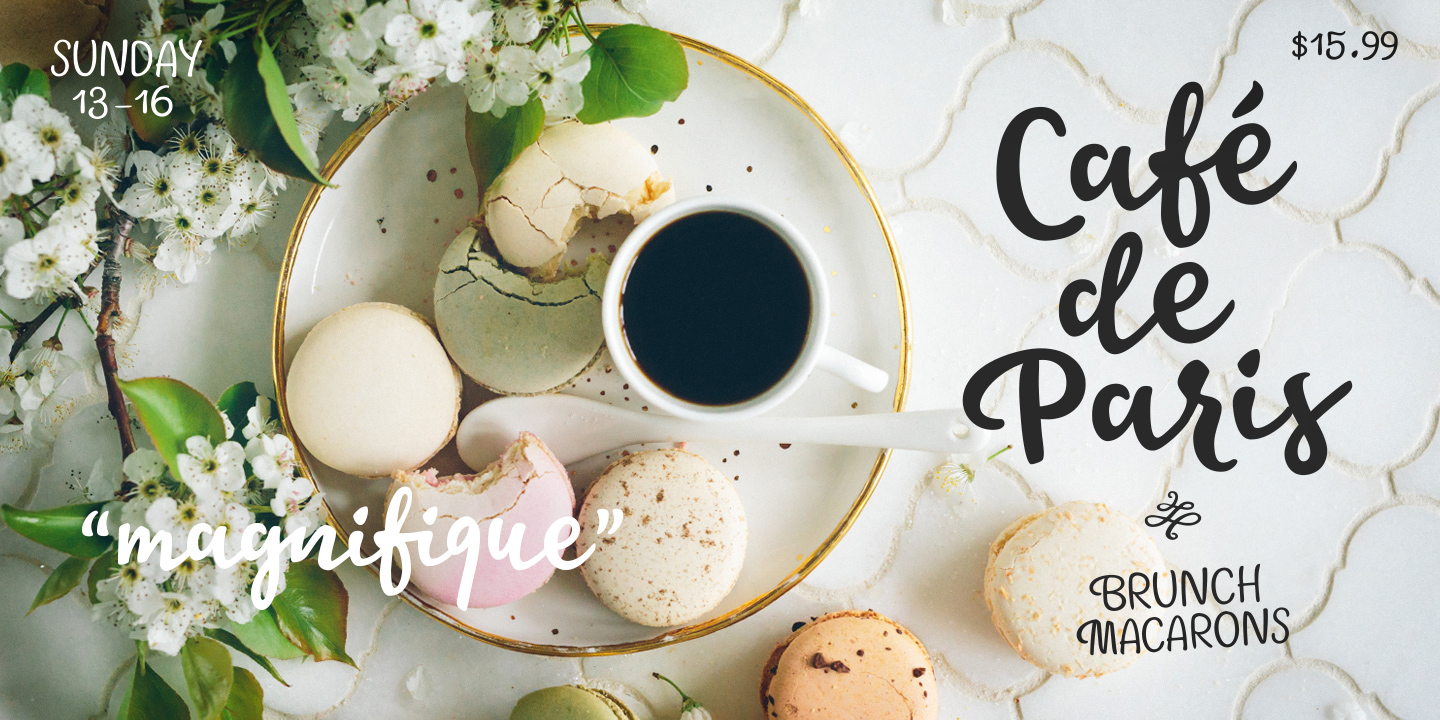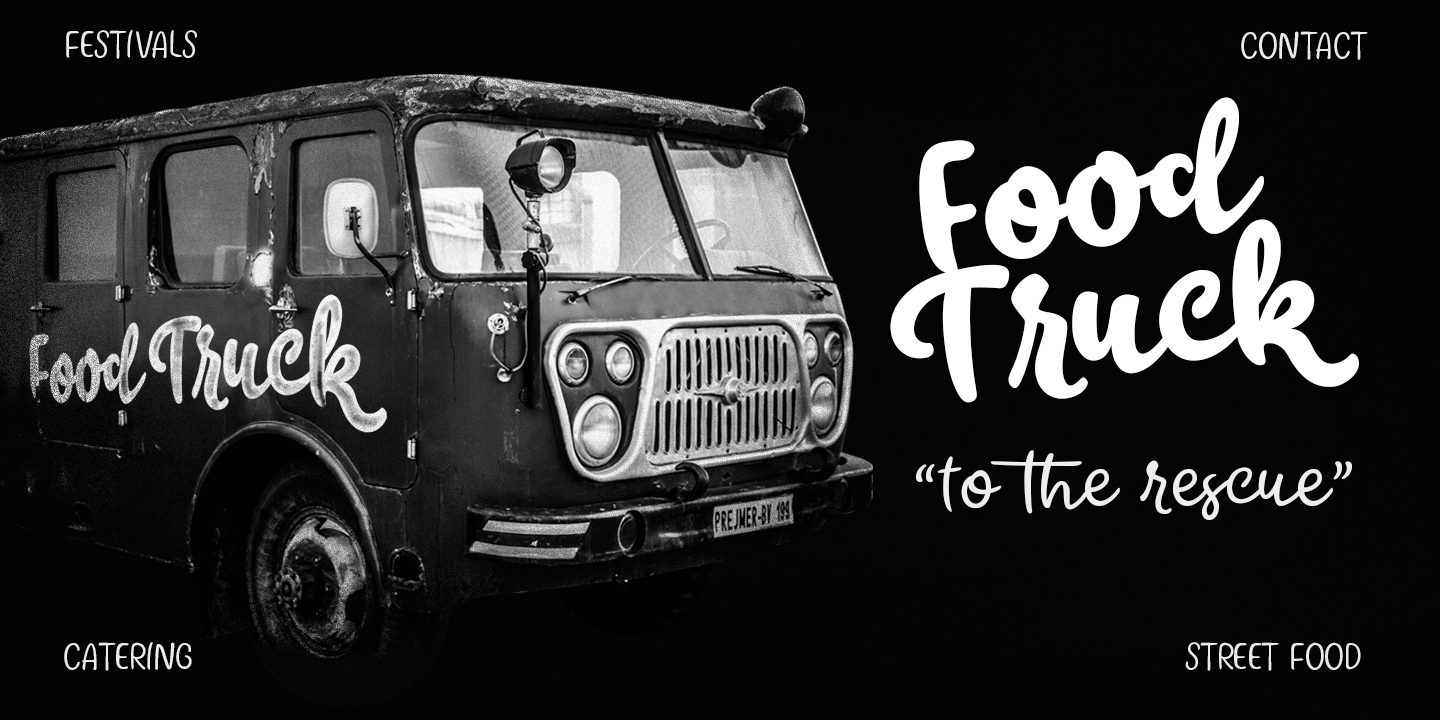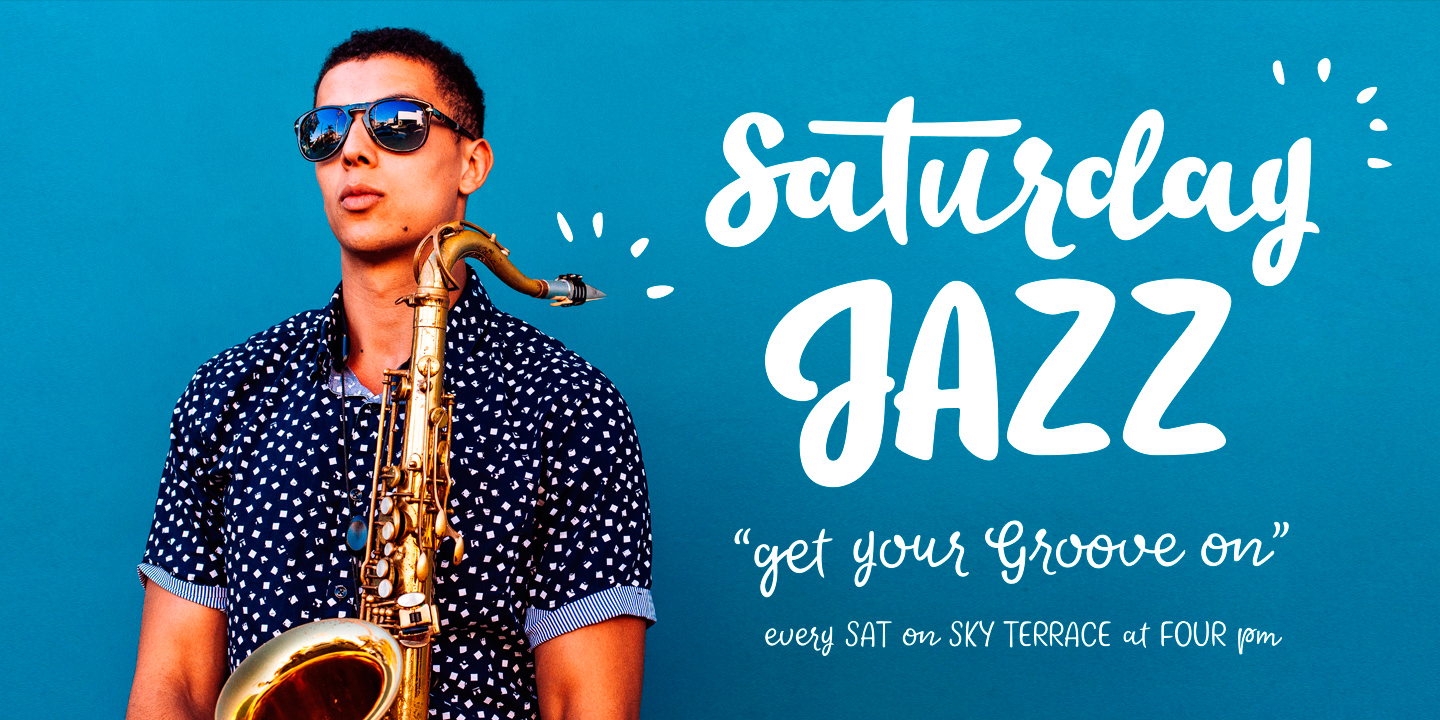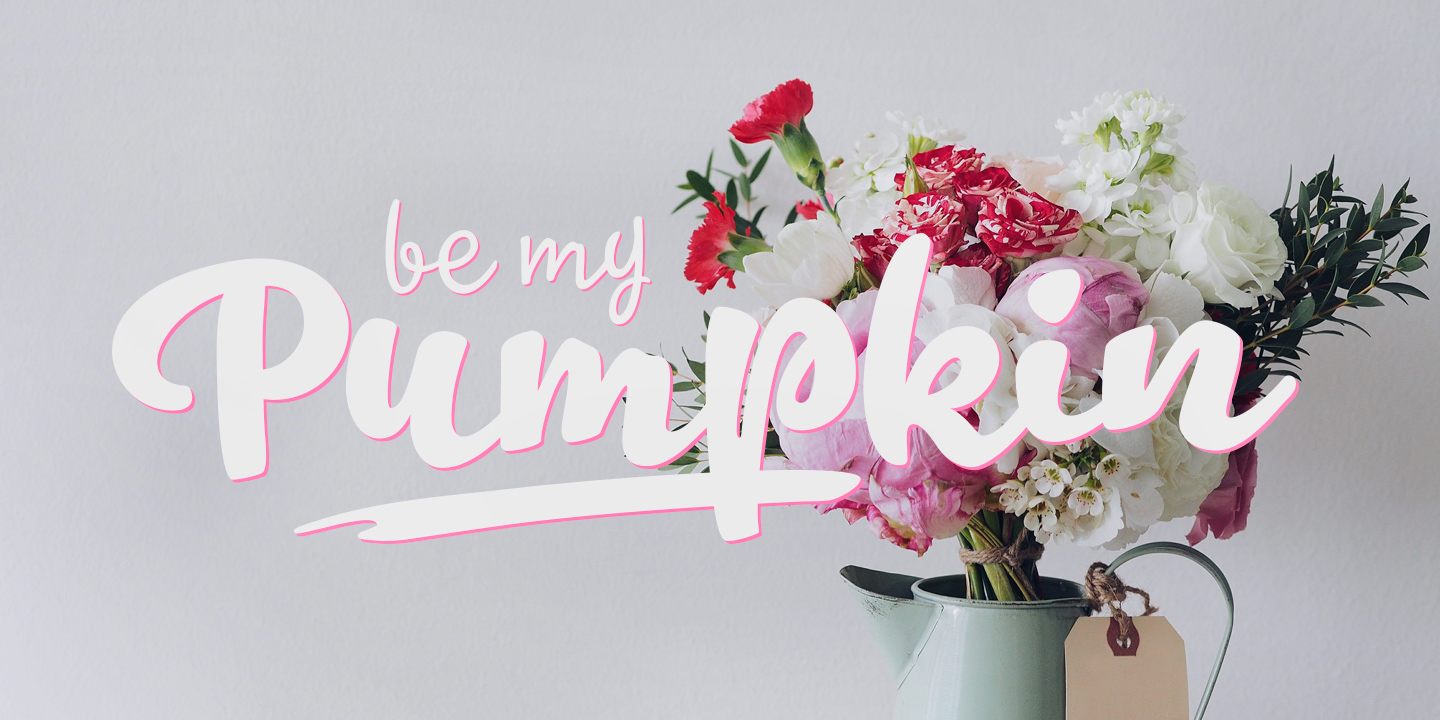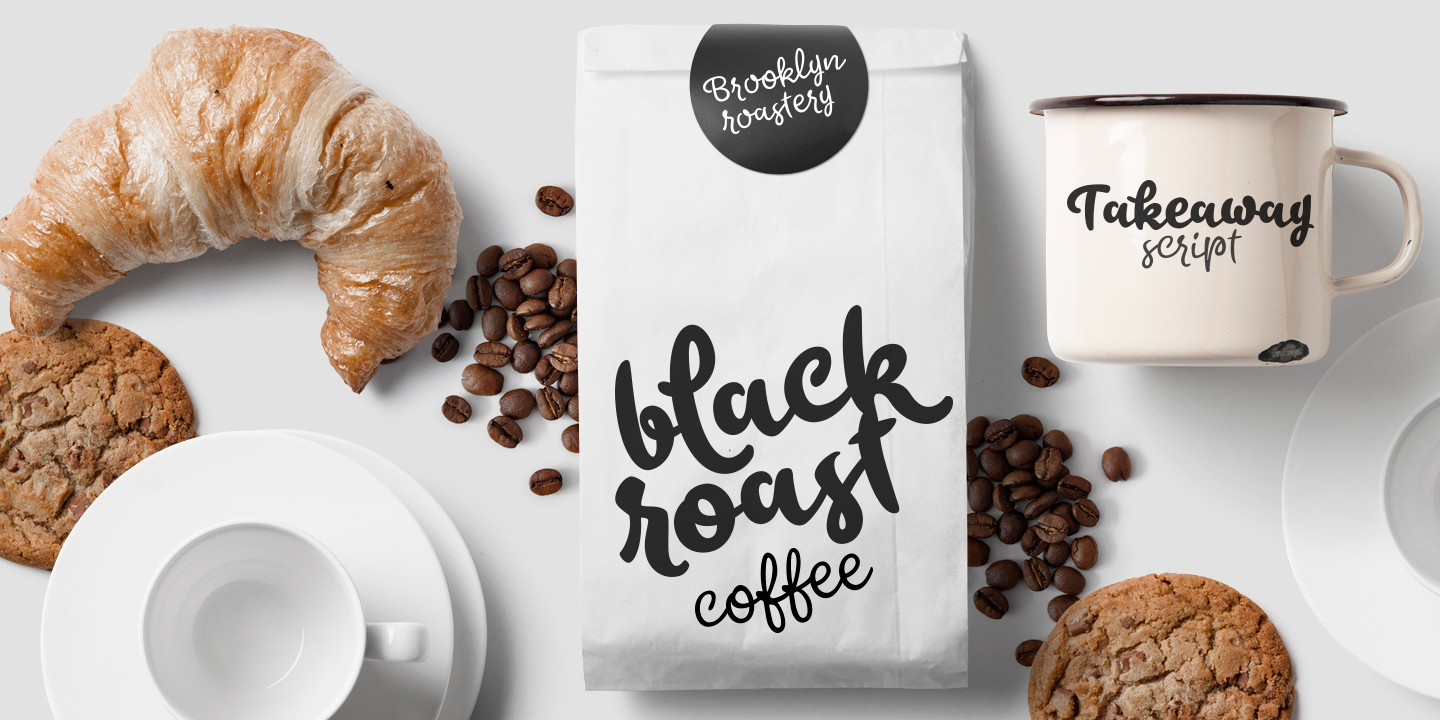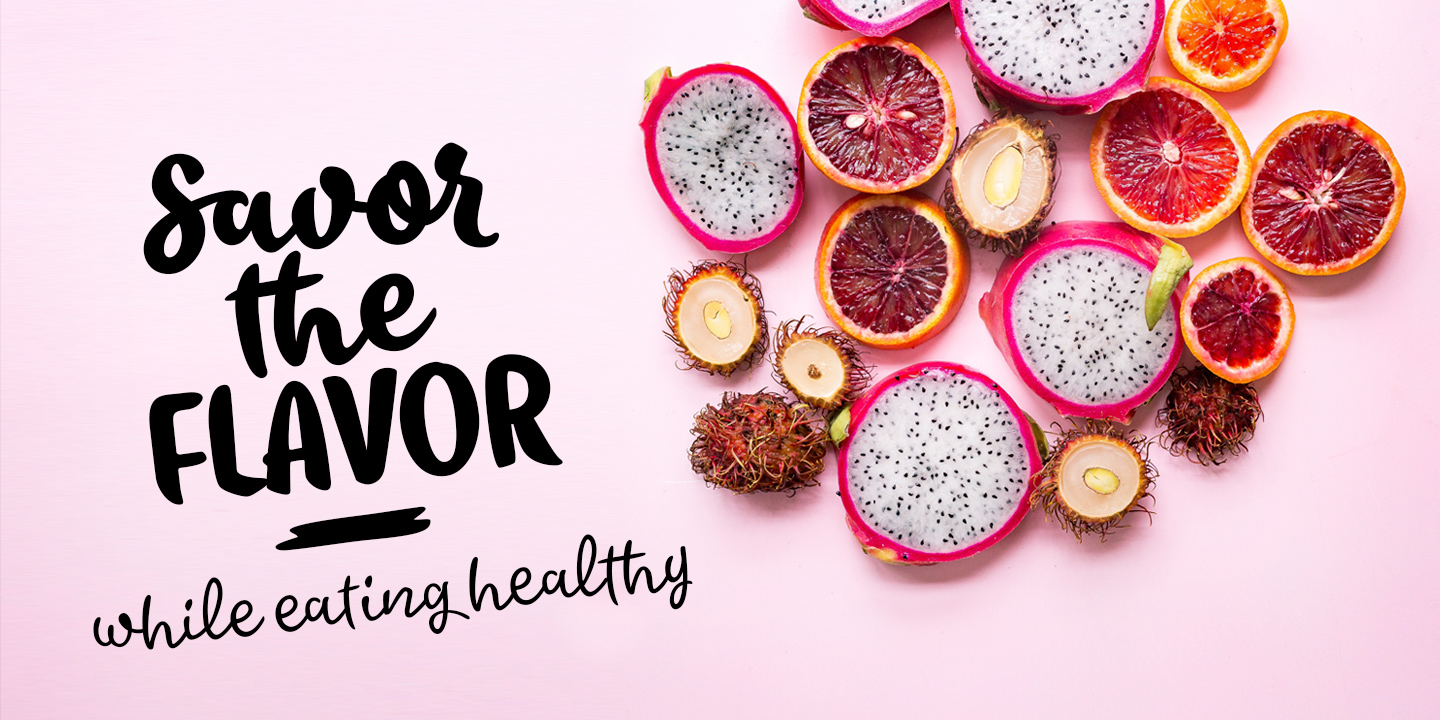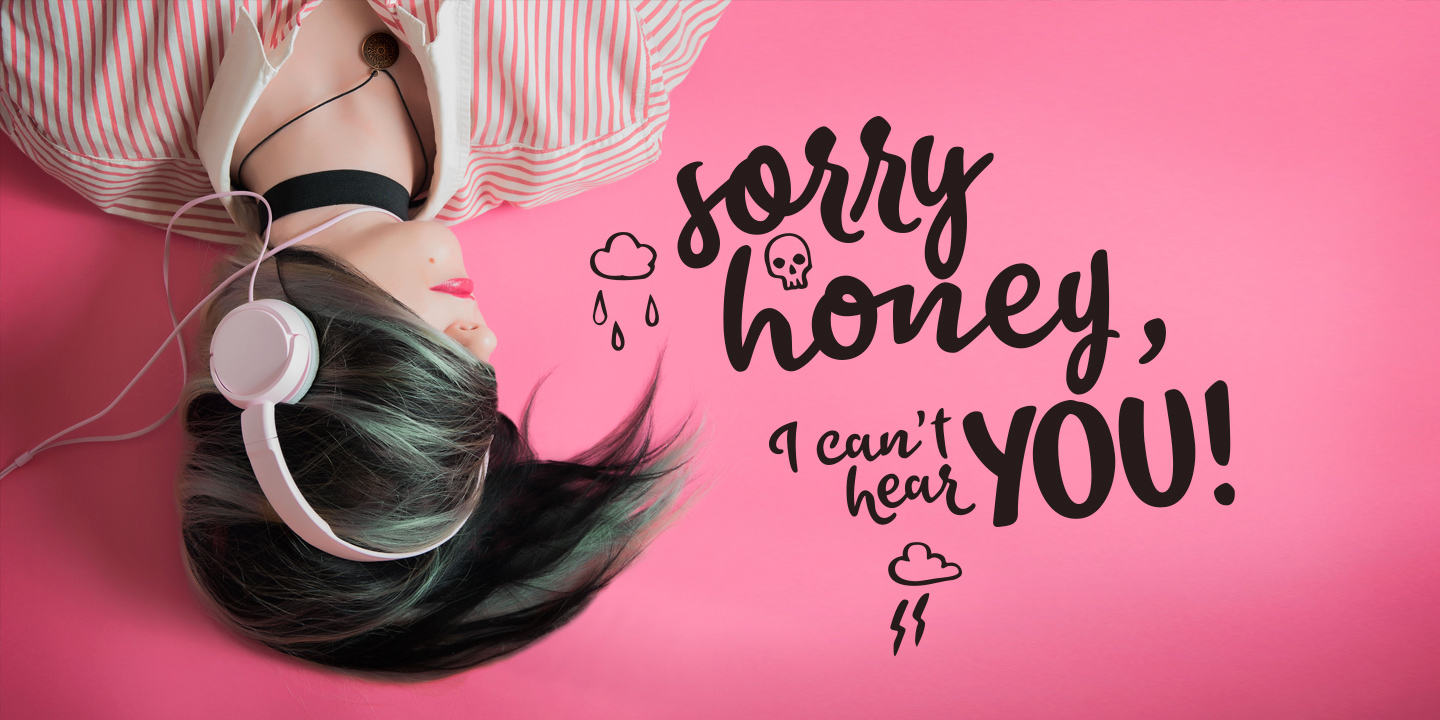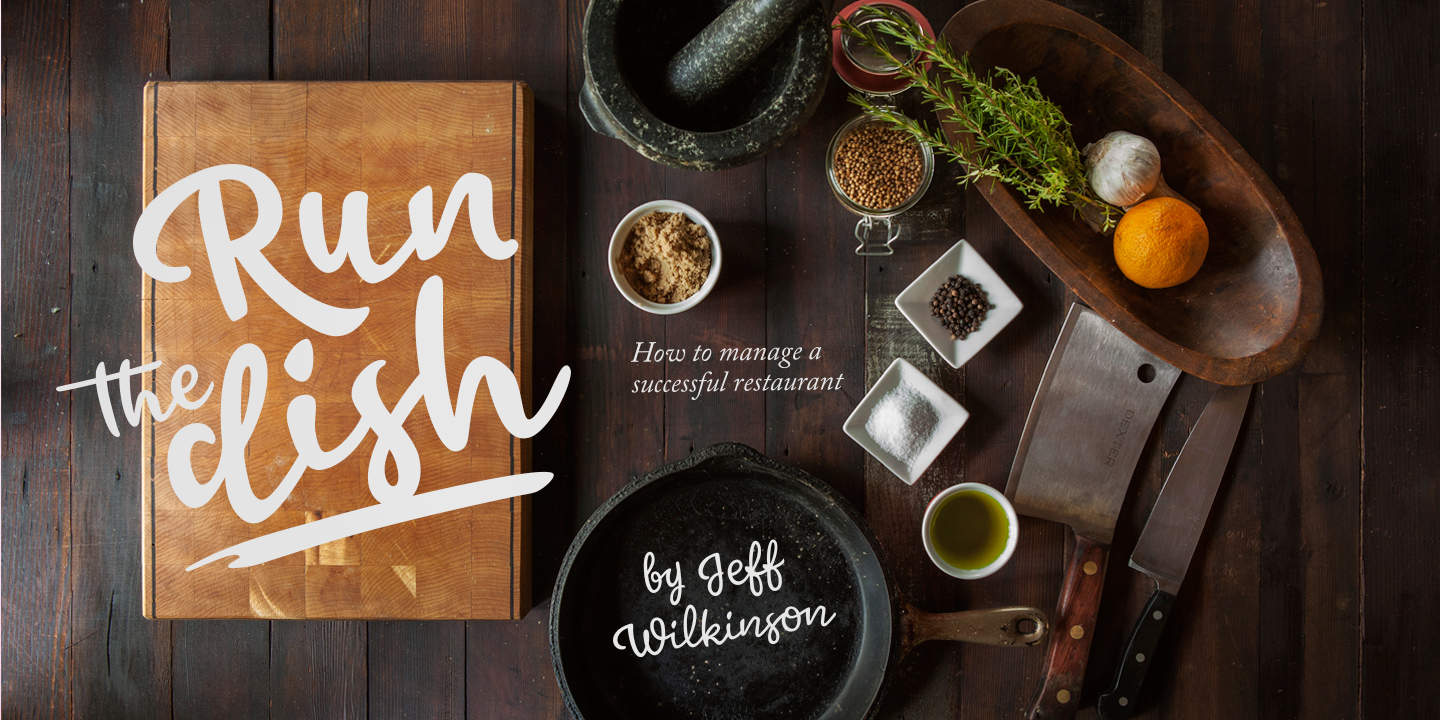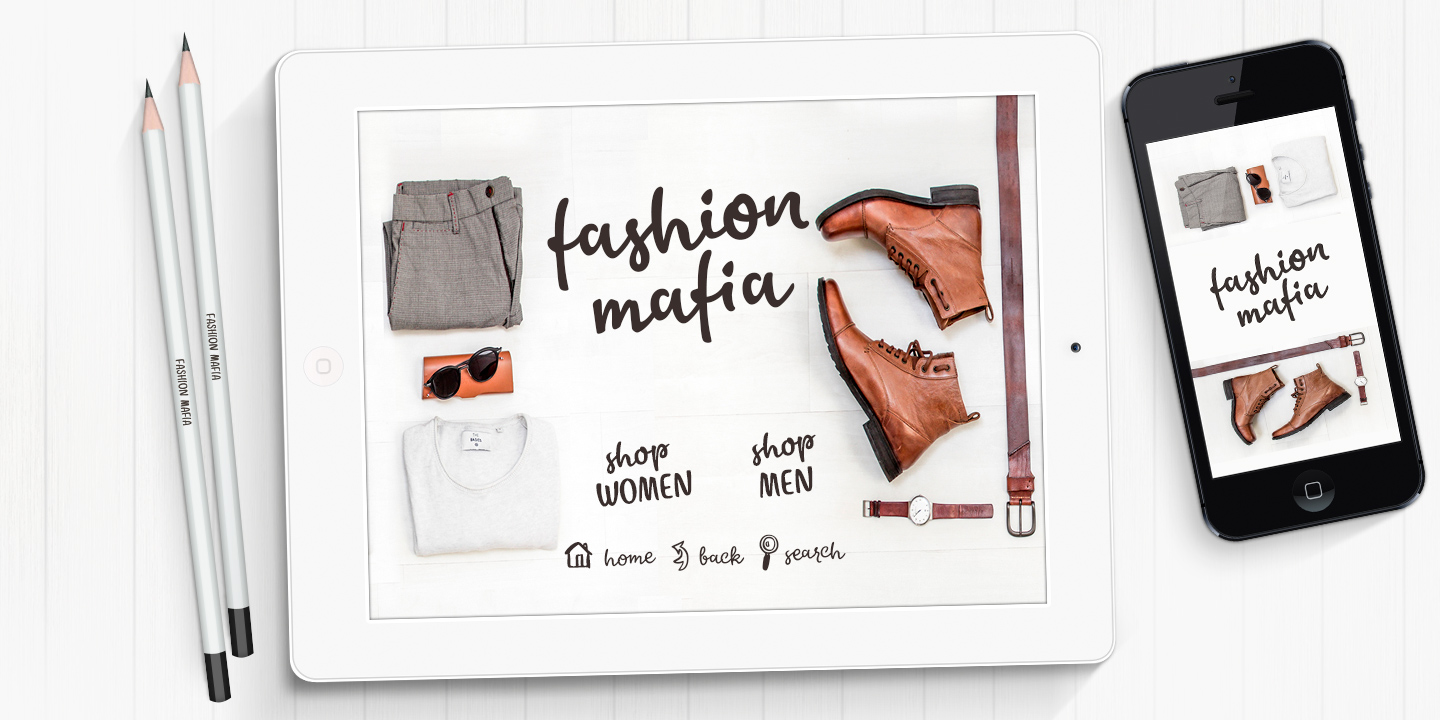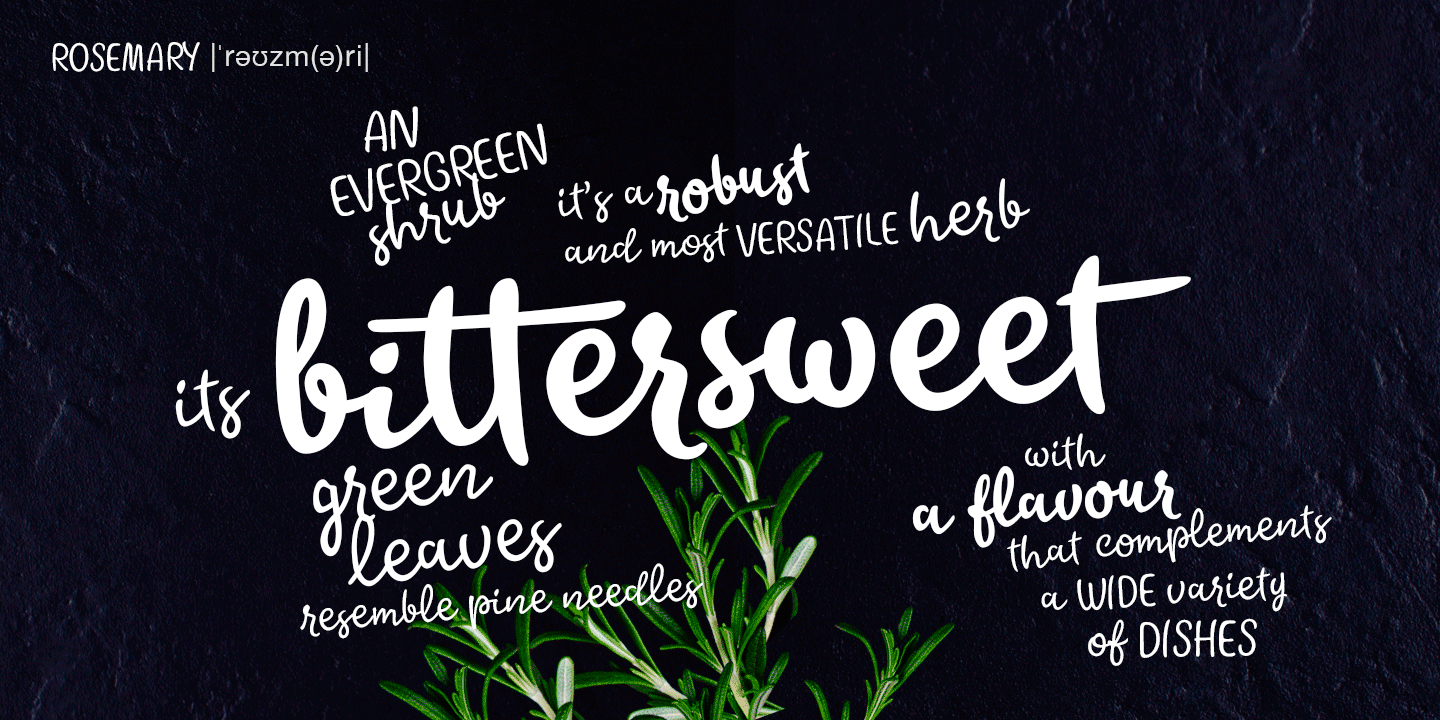
Takeaway is packed with OpenType features: Keep Contextual Alternates and Standard ligatures on for smooth flow and for more expressive character try Swash or Titling Alternates in any OpenType savvy program. Takeaway caps work as ALL CAPS - yet there’s also Swash and Titling caps that are more expressive initials.
Takeaway is a great organic display type for any project from branding to packaging and from websites to greeting cards.
Combine Takeaway Script with Takeaway Extras which is a set of sketchy ornaments, icons and swashes.
OpenType features: Ligatures, Contextual Alternates, Swash